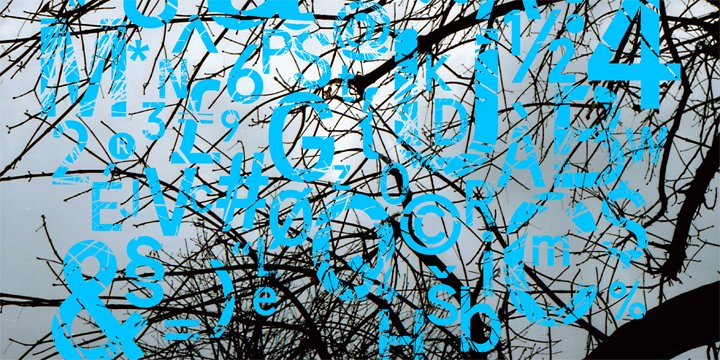
Superwood™
Superwood
Developed from Superbastone and projected to be used with all the weights of Superbastone.
The letters appear through overlapping branches.